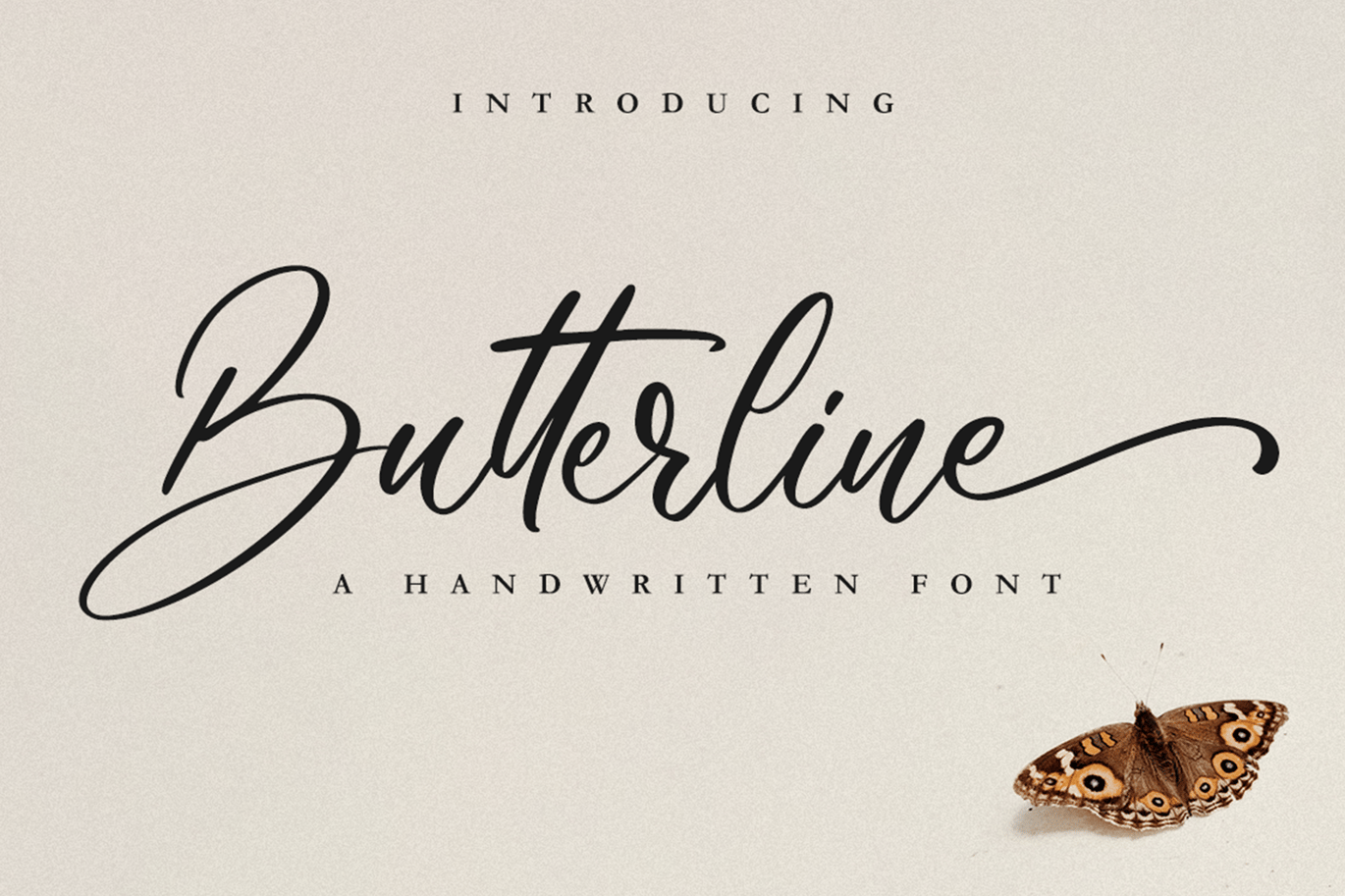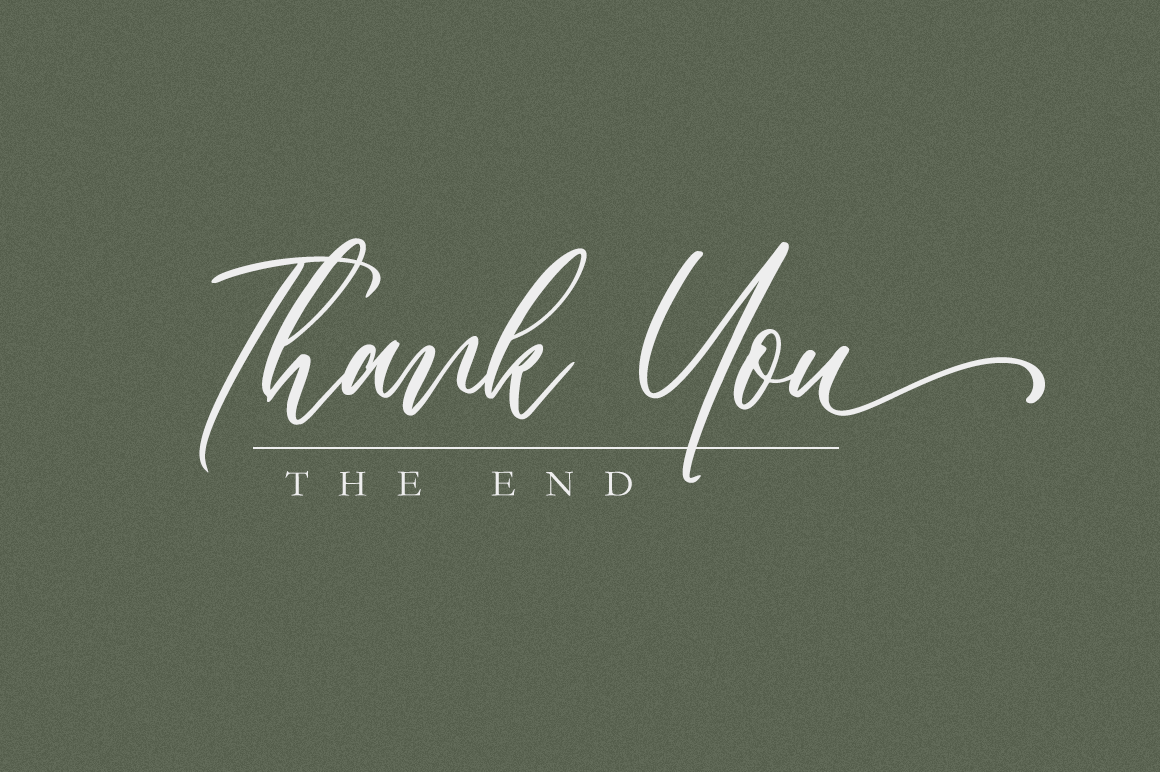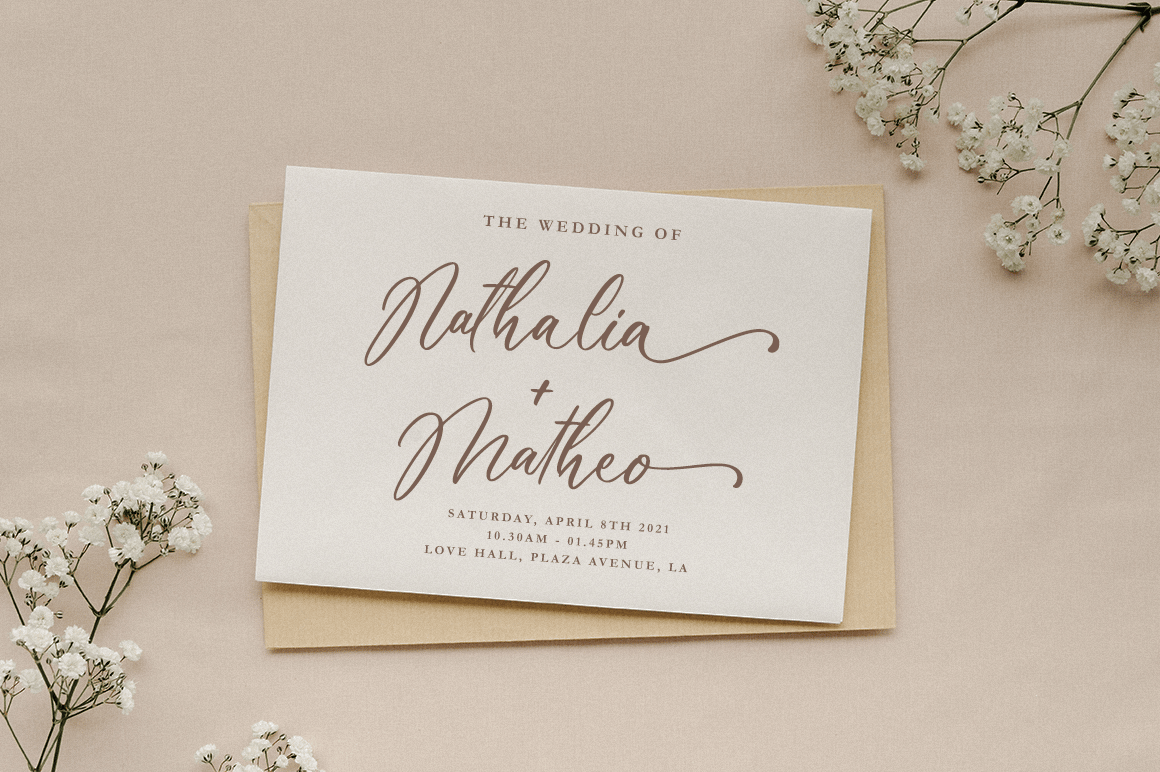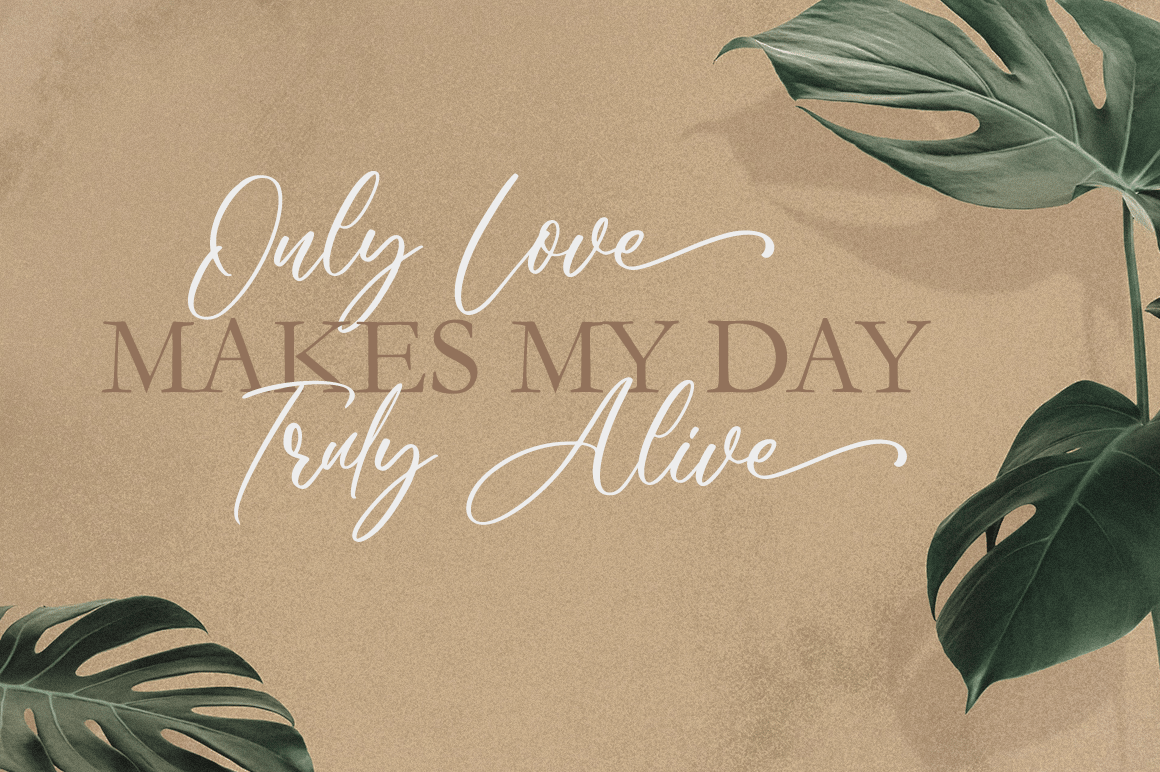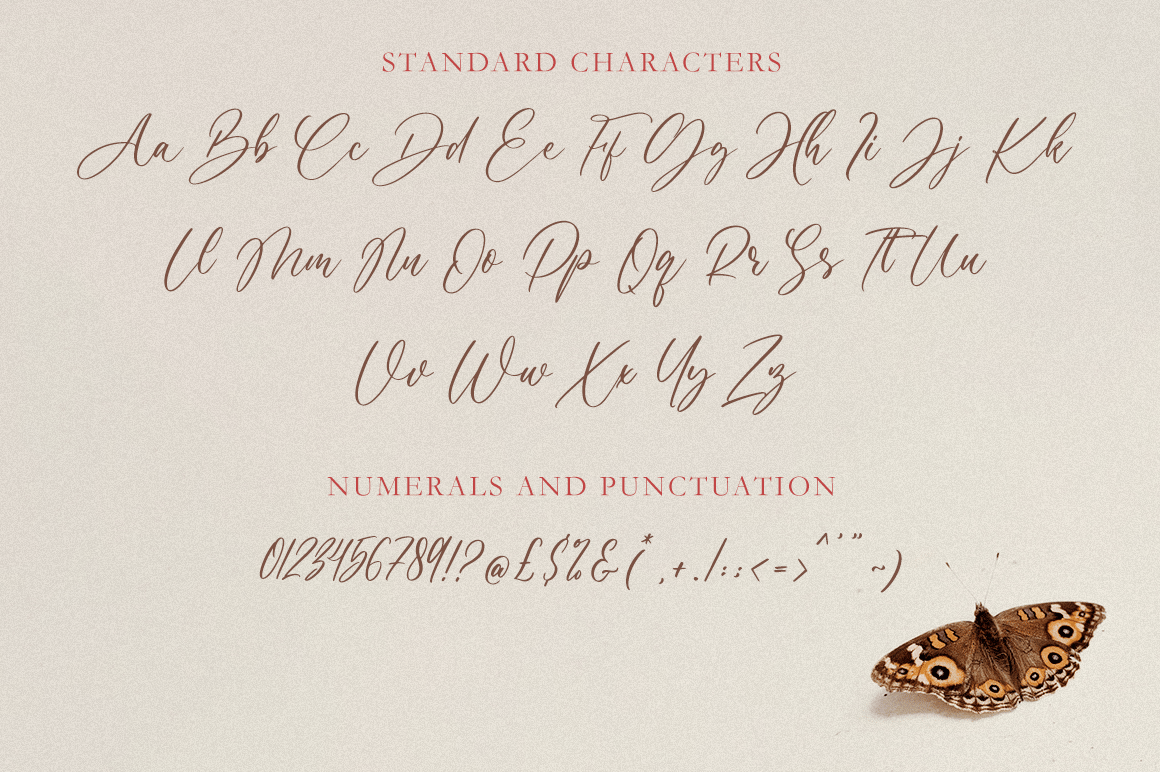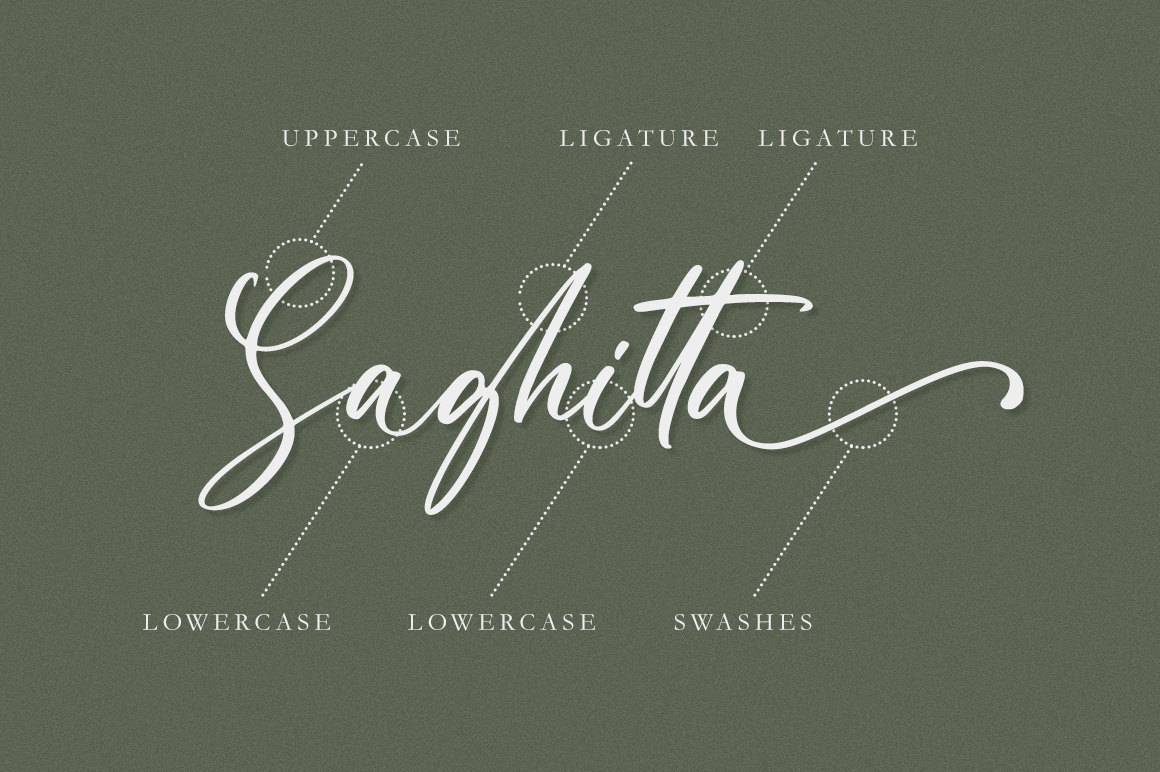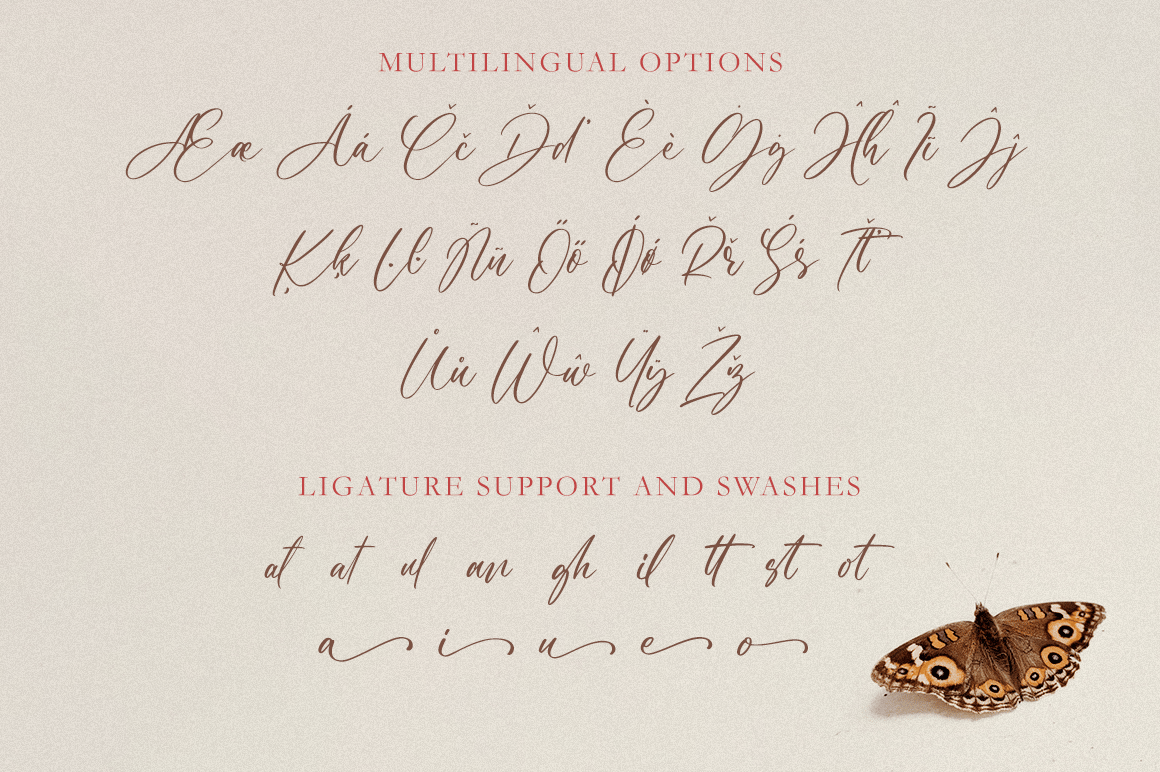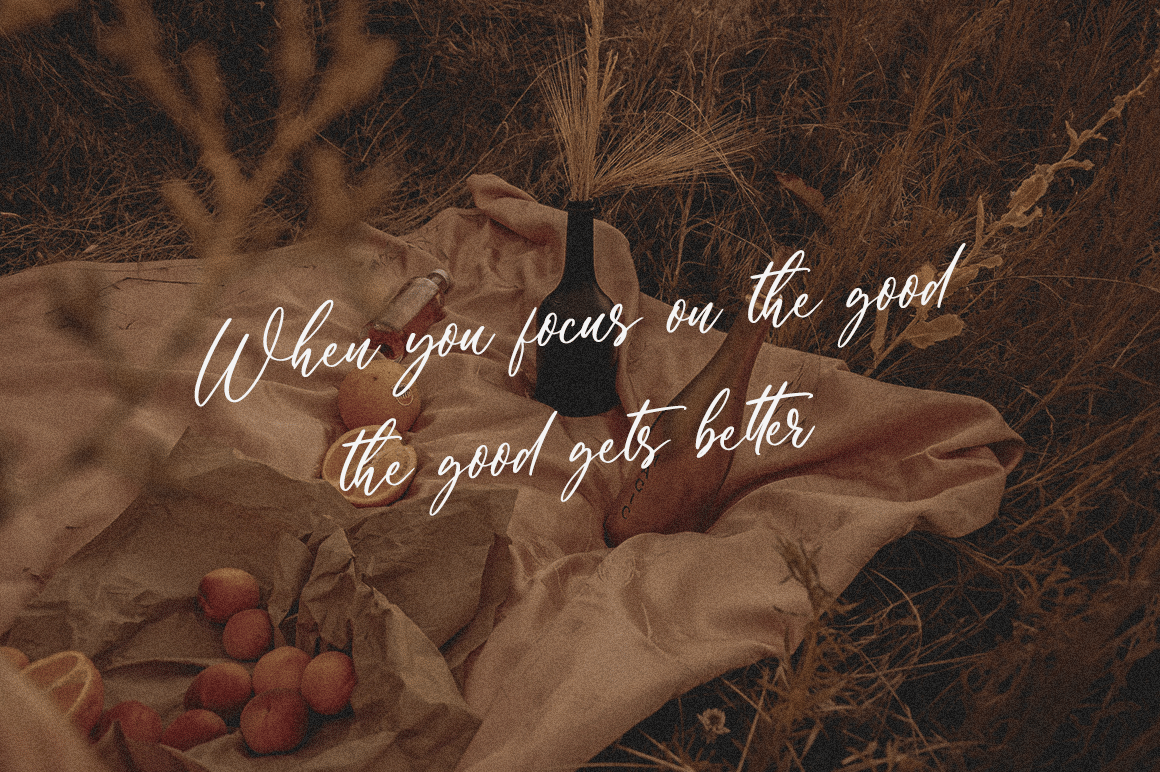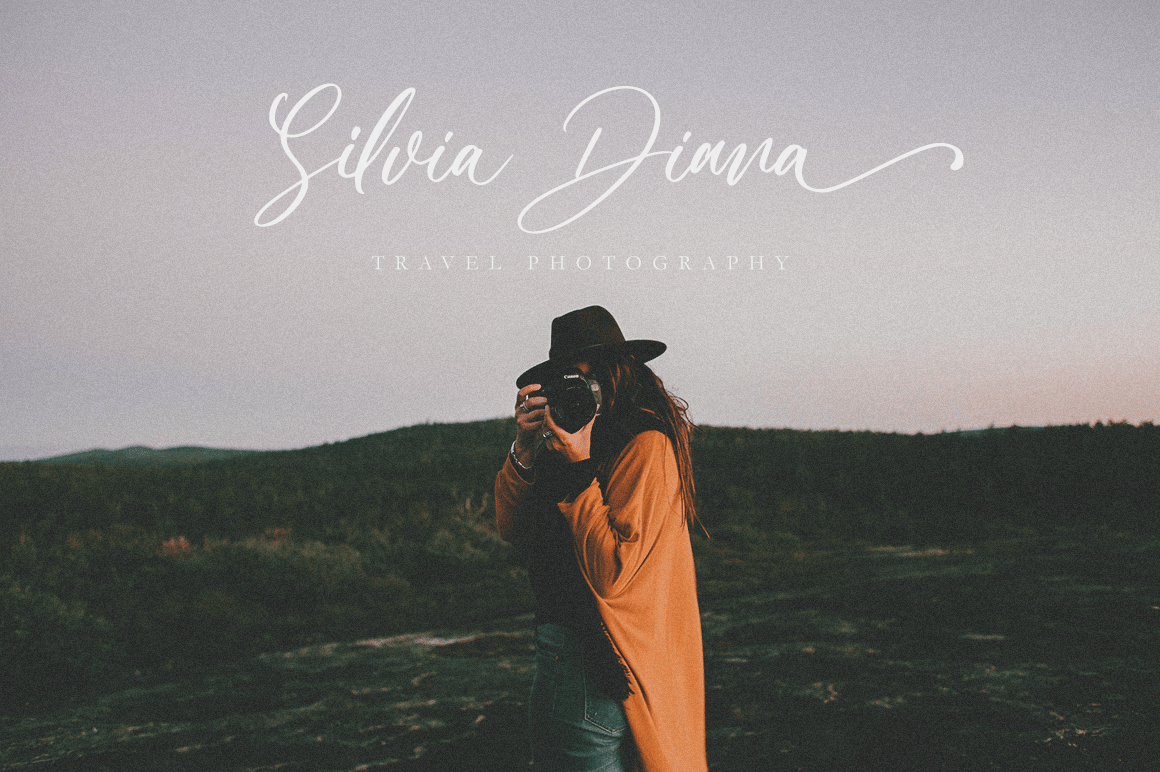
Butterline – Wedding Font
Butterline is an elegant script font, that features a very delicate and classy look. Not too thin and not too thick, balanced and varied, this font was designed to enhance the beauty of your projects.
- Modern Handwritten Font
- Beautiful Swash (Ending tail)
- Beautiful Titling (Beginning tail)
- Special Ligatures